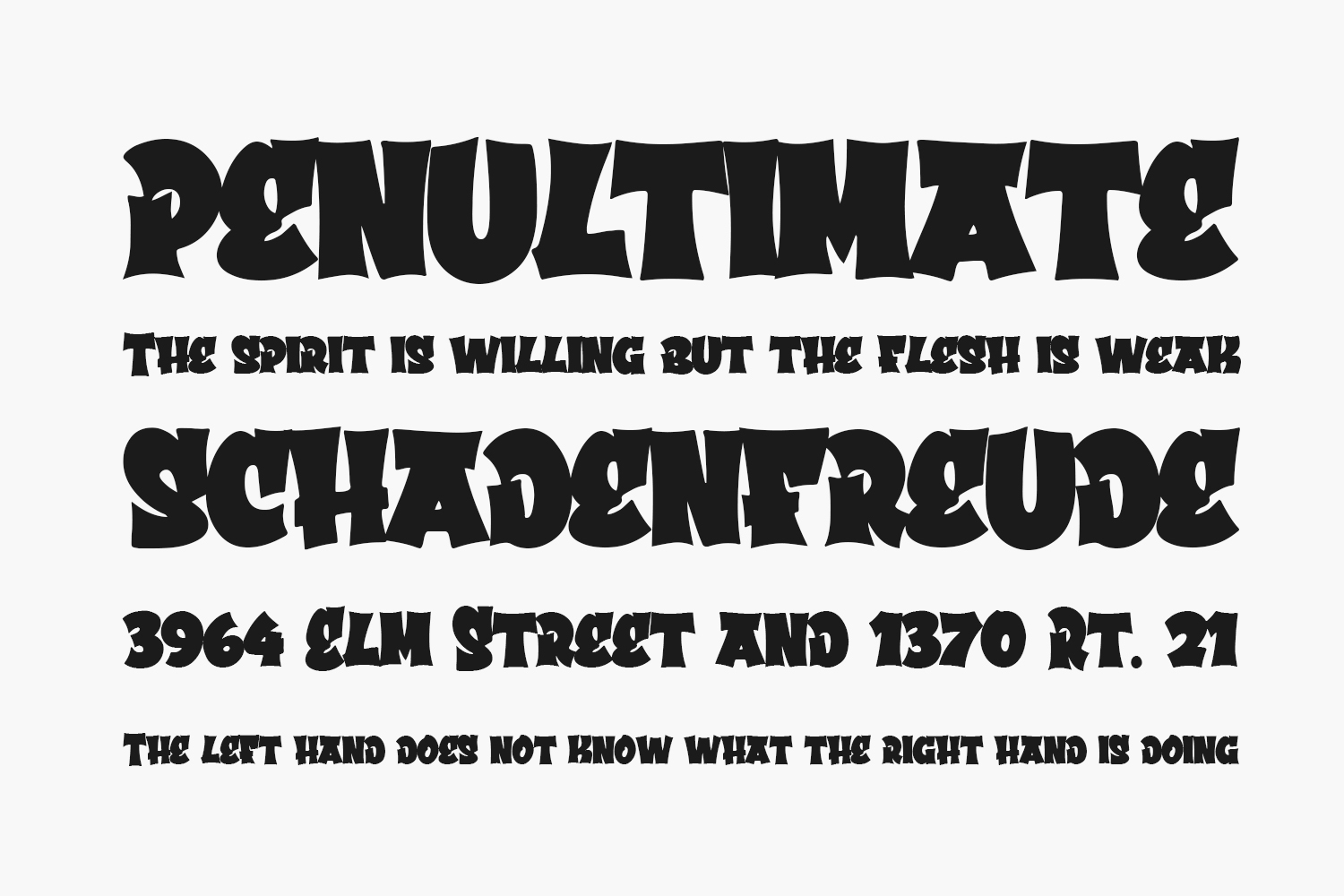
Bradwall Free Font is a cool, graffiti styled display font. Whether you use it for cartoon related designs, children’s games, or just any creation that requires a lovely touch, this font will be an amazing choice. Bradwall Free Font was designed by Bangkit Tri Setiadi and is free for personal use only. Please purchase the full version for commercial use.